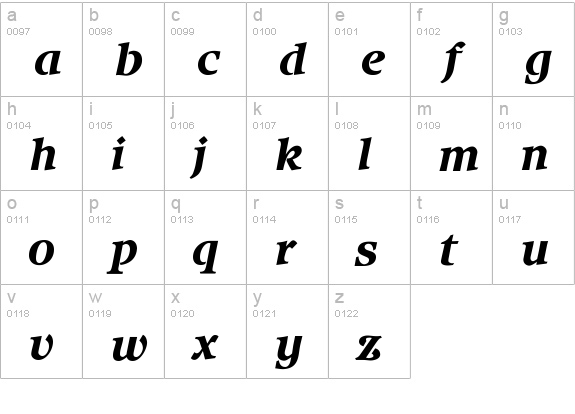
IsbellBoldItalic Font Details
IsbellBoldItalic font is a stunning combination of boldness and elegance. It effortlessly captures attention with its strong and assertive strokes, while also exuding a touch of sophistication through its beautifully slanted italics. This font is perfect for those seeking a bold statement with a hint of refinement. Designed with utmost precision, IsbellBoldItalic font is meticulously crafted to ensure readability and legibility in both small and large sizes. Its balanced proportions and smooth curves make it a versatile choice for various design projects, including logos, headlines, posters, and more. But what makes IsbellBoldItalic font even more enticing is that it is free! Yes, you read that right. This remarkable font is freely available to download at FontsMarket.com. Now you can add a touch of boldness and elegance to your designs without breaking the bank. Whether you're a professional designer or a creative enthusiast, IsbellBoldItalic font will elevate your work to new heights. Its unique combination of strength and grace will create a lasting impression and leave your audience captivated. So why wait? Download IsbellBoldItalic font today and unleash your creativity with this remarkable typeface.